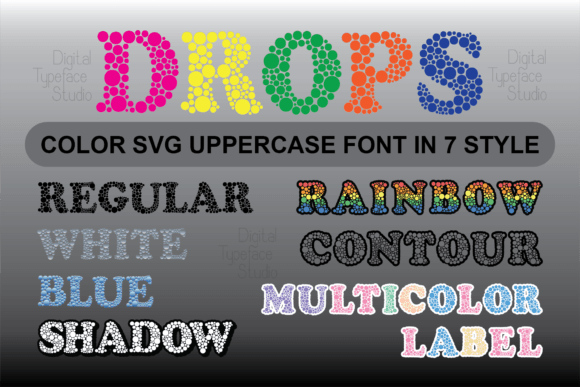
Introducing Drops Font: A Rainbow of Creativity at Your Fingertips
In a world of ordinary fonts, Drops Font stands out as an explosion of vibrancy and imagination. Picture a collection of tiny, colorful drops, each carefully arranged to form captivating letters that will add a touch of whimsy and artistry to your designs. With Drops Font, your words will burst off the page, leaving a lasting impression on your audience.
Dive into a kaleidoscope of colors that will transform your designs into masterpieces. From cheerful invitations to eye-catching branding, Drops Font is the perfect choice for any project that demands a splash of cheerfulness. Its playful and vibrant aura will instantly captivate your audience, leaving them mesmerized by the beauty of your creations.
Unleash your creativity and let your imagination soar with Drops Font. Whether you're a seasoned designer or just starting out, this font will become your go-to choice for adding a touch of magic to your projects. Its versatility knows no bounds, adapting seamlessly to a wide range of design applications, from invitations and branding to social media graphics and website designs.
With Drops Font, the possibilities are endless. Its unique and captivating style will make your designs stand out from the crowd, leaving a lasting impression on your audience. Embrace the power of color and creativity, and let Drops Font transform your designs into works of art.